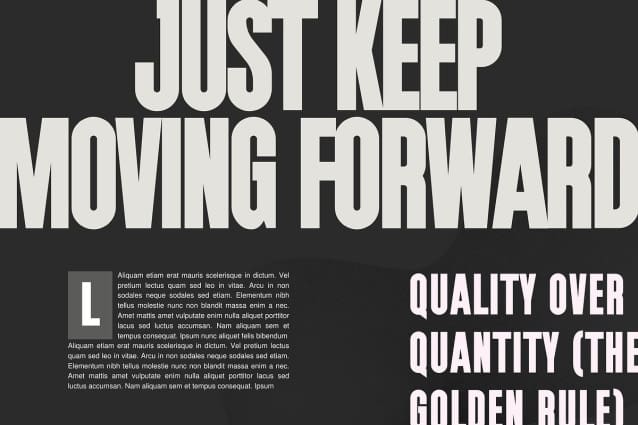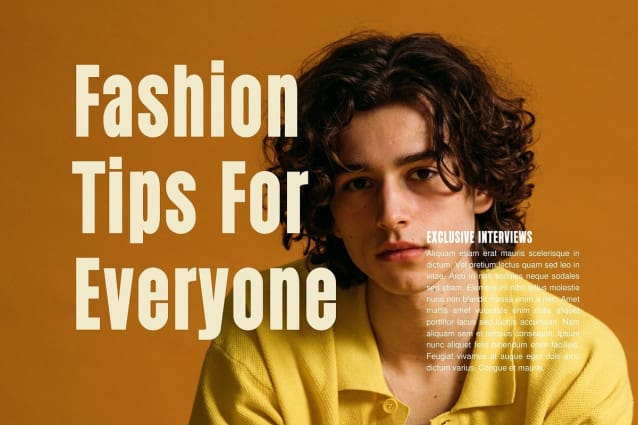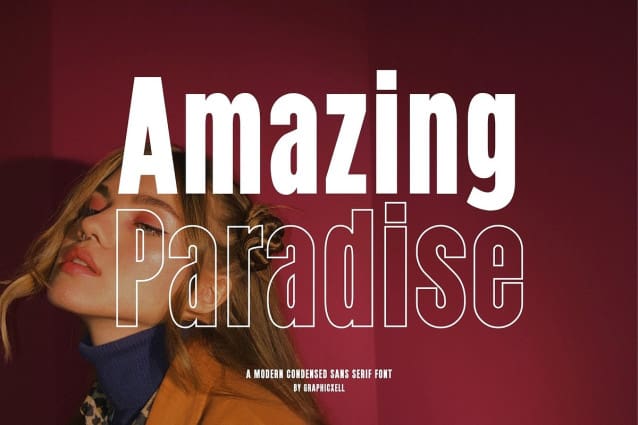
Amazing Paradise Font
Amazing Paradise Font – Condensed Sans Font Typeface inspired by the famous minimalist logo perfect for the purposes of designing templates, brochures, videos, advertising branding, logos, invitation, layout design, elegant crafting, beauty design and other